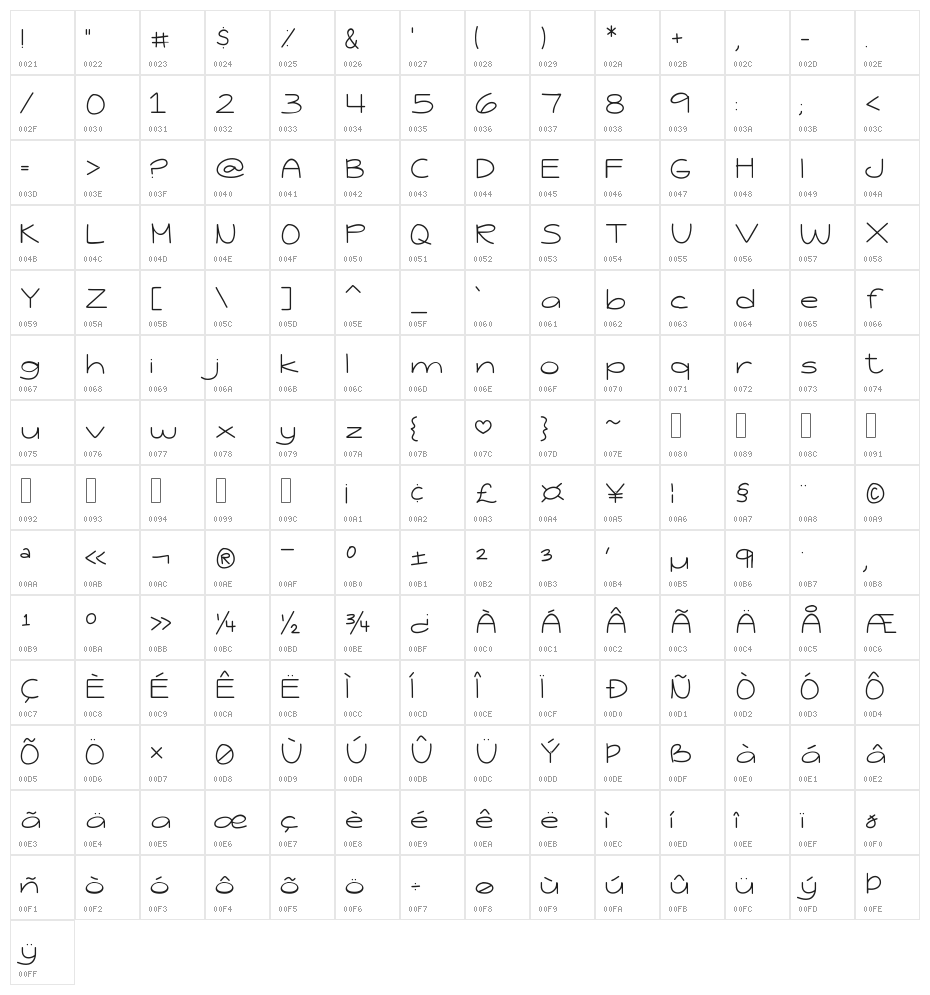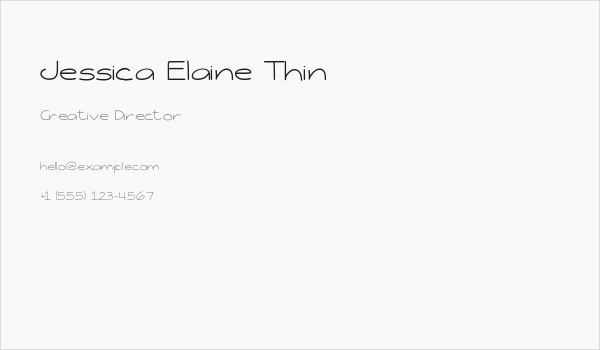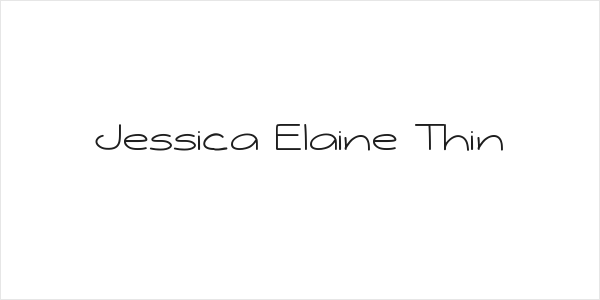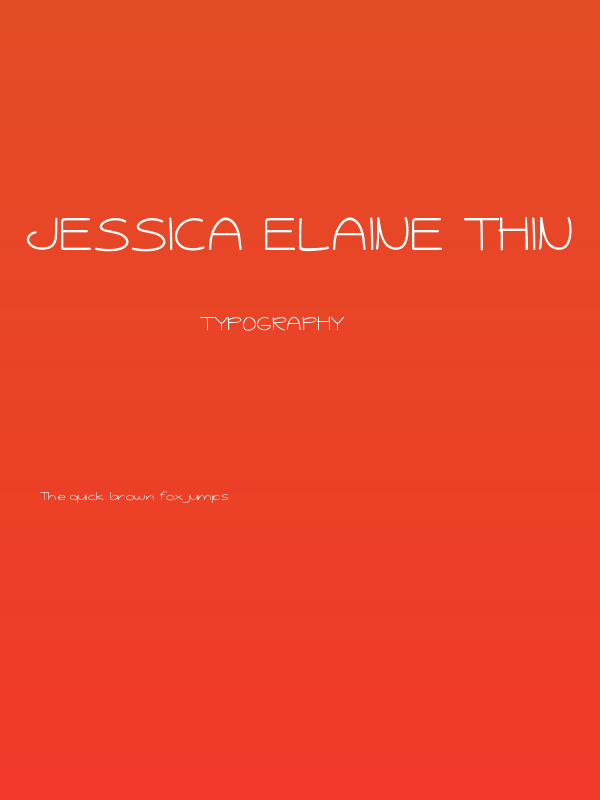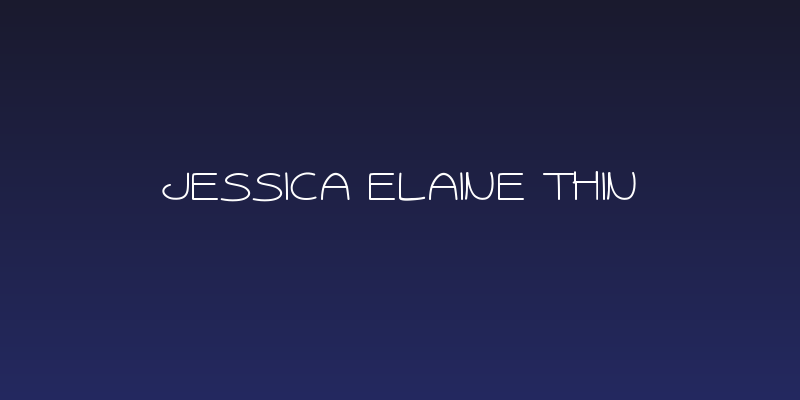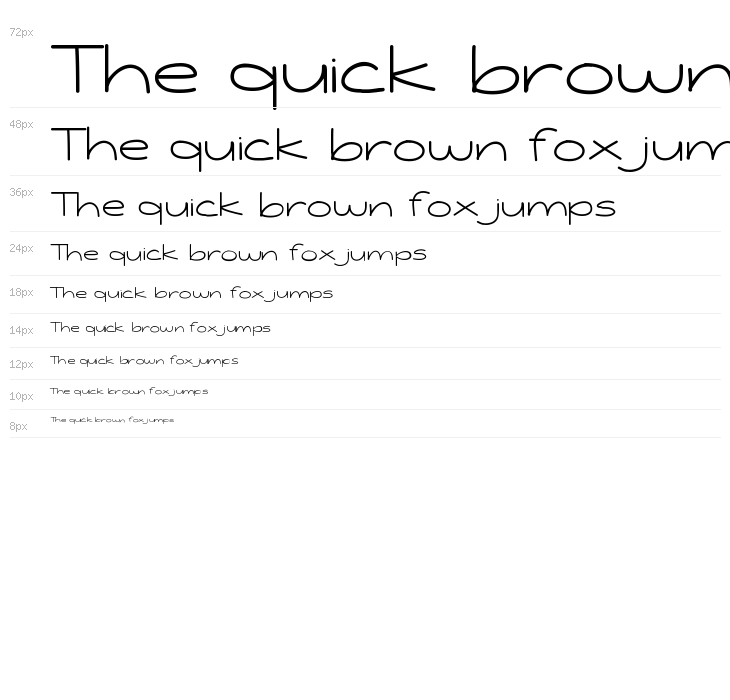
Jessica Elaine Thin Font
Jessica Elaine Thin Description
This font features a playful and whimsical design, characterized by its thin, smooth strokes and rounded edges. The letters have a handwritten feel, with a consistent flow and slight variations in curvature that add a personal touch. The uppercase and lowercase letters maintain a uniform height, creating a harmonious appearance. Numbers and special characters are crafted with the same attention to detail, ensuring readability and aesthetic appeal. The overall style is casual yet refined, making it suitable for projects that require a friendly and approachable look.
| Proposed Projects | Ideal for greeting cards, children's books, playful branding, and casual invitations. |